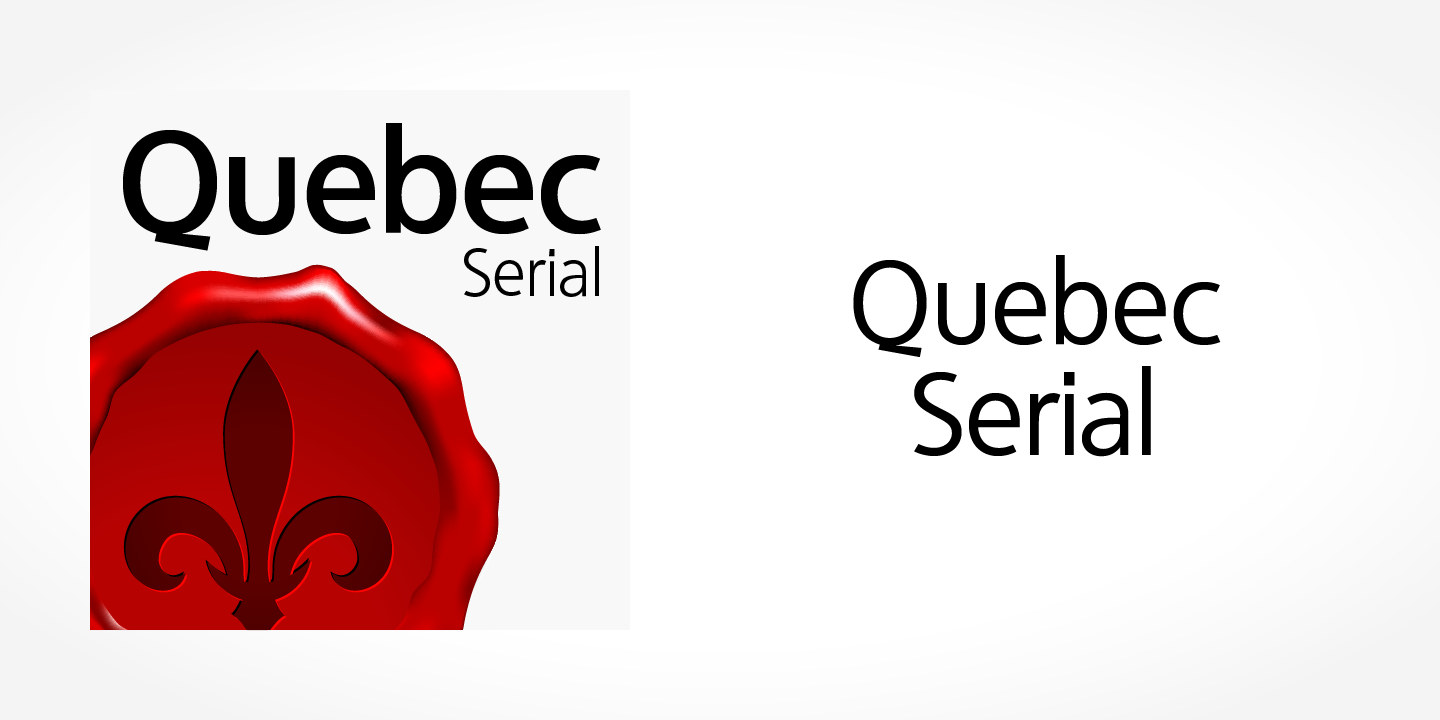
Quebec Serial Font is perfect for Canadian heritage branding, French-Canadian cultural projects, Quebec tourism campaigns, bilingual government communications, maple syrup product packaging, winter sports event materials, Canadian corporate identities, northern wilderness marketing, Franco-Canadian publications, and authentic Quebec regional communications. Its Canadian character makes it ideal for projects requiring national pride and Quebecois cultural authenticity that celebrates Canadian heritage and francophone traditions.
What makes Quebec Serial Font exciting is its sophisticated embodiment of Canadian elegance and Quebec cultural richness through letterforms that capture the unique blend of French sophistication and North American practicality. The font features refined curves with distinctly Canadian proportions that convey both European elegance and frontier resilience while maintaining excellent readability for bilingual communications. Its Quebec character transforms ordinary text into expressions of Canadian pride that celebrate the distinctive cultural heritage of French Canada.
The Quebec Serial Font family includes Regular, Bold, Light, Heritage, Maple, Winter, and Franco variations. Each style preserves the font's Quebec essence while offering different levels of Canadian sophistication and cultural weight for creating authentic northern graphics. The comprehensive character set includes Canadian symbols, Quebec ornaments, Franco-Canadian decorations, and heritage glyphs essential for genuine Canadian and Quebec typography projects.
Canadian organizations and Quebec businesses consistently choose Quebec Serial Font Free Download for projects demanding authentic Canadian typography solutions. The font's Quebec character instantly establishes national credibility while ensuring clear communication across Canadian marketing channels. Its versatility spans from subtle Canadian touches to bold statements that celebrate the rich cultural mosaic and the distinctive francophone heritage that makes Quebec such a unique and vital part of Canadian identity.
Whether you're developing Canadian brand identities, creating Quebec cultural materials, or designing Franco-Canadian communications, Quebec Serial Font provides the perfect combination of Canadian authenticity and contemporary functionality. The font's culturally crafted letterforms ensure genuine Quebec character while maintaining excellent performance across various Canadian applications and francophone business communications.
The national heritage of Quebec Serial Font makes it exceptional for creating patriotic connections with audiences who appreciate Canadian culture and Quebec traditions. Its Quebec precision and Canadian appeal work seamlessly across traditional heritage materials and modern digital Canadian platforms. The font performs proudly in both large-scale national displays and intimate Quebec communications.
Celebrate Canadian heritage with Quebec Serial Font and discover how authentic Quebec typography can enhance your Canadian projects with genuine francophone appeal and national sophistication. This remarkable typeface combines Quebec tradition with contemporary functionality, making it indispensable for Canadian brands celebrating the rich cultural heritage and distinctive identity of French Canada within the Canadian mosaic.